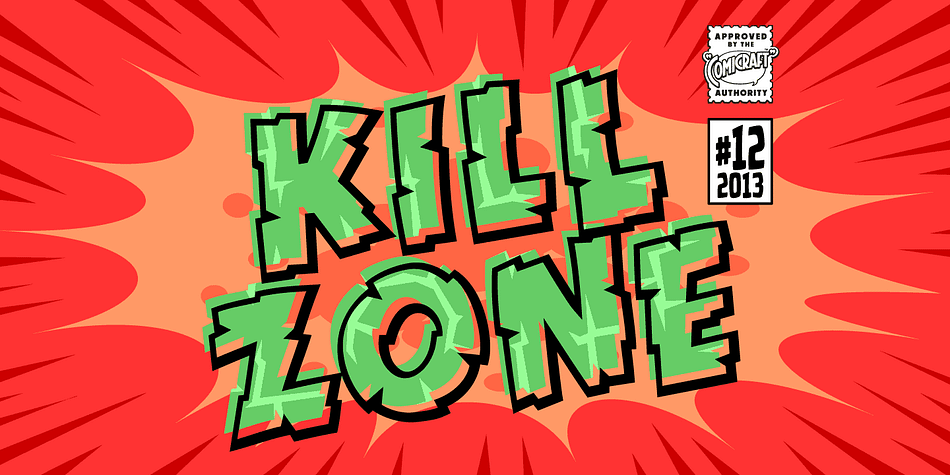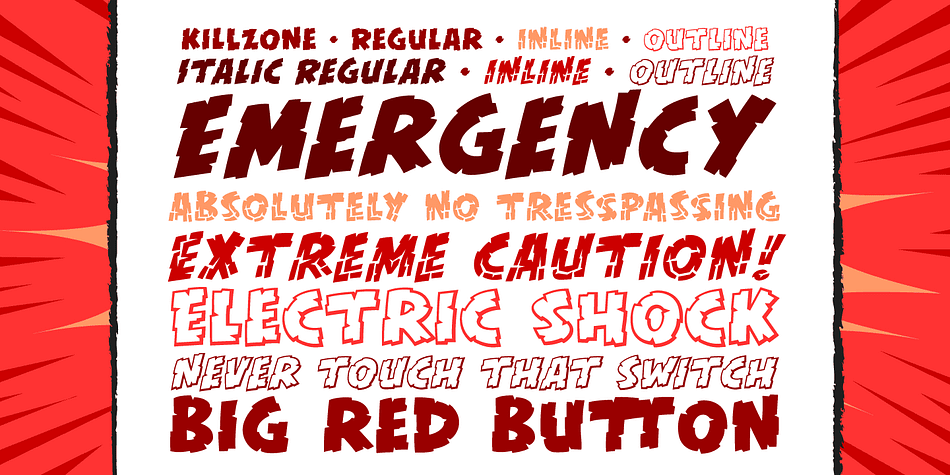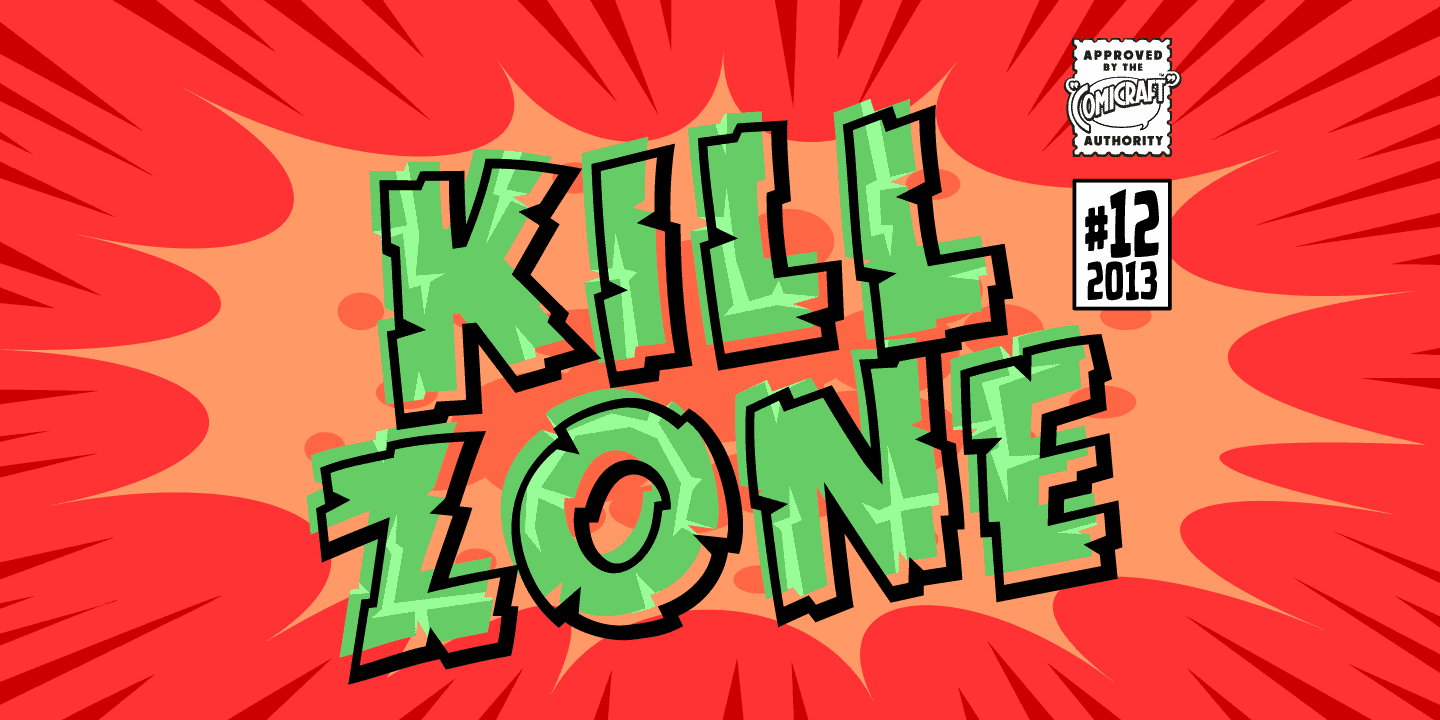
Designed by John Roshell, Kill Zone is a comic and hand display font family. This typeface has six styles and was published by Comicraft.
An AMBUSH. An ATTACK. EXPLOSIONS. We know who our friends are. We know our ENEMIES… and we know their WEAKNESSES. There WILL be be paintball blood shed. There will be imaginary fatalities.
There are multiple targets involved in Comicraft’s strategical font deployment; non-lethal airsoft gun and small water pistol fire may be augmented by minecraft, large waterpistols and first person shooter video gameplay. There has already been a lot of virtual damage to the inline AND italic versions of this font.
Don’t worry, we knew going in that this was a TRAP. Load these fonts into your console, it’ll all be over in a minute.
Six fonts (Regular, Italic, Inline Regular, Inline Italic, Outline Regular, Outline Italic) with alternate characters.